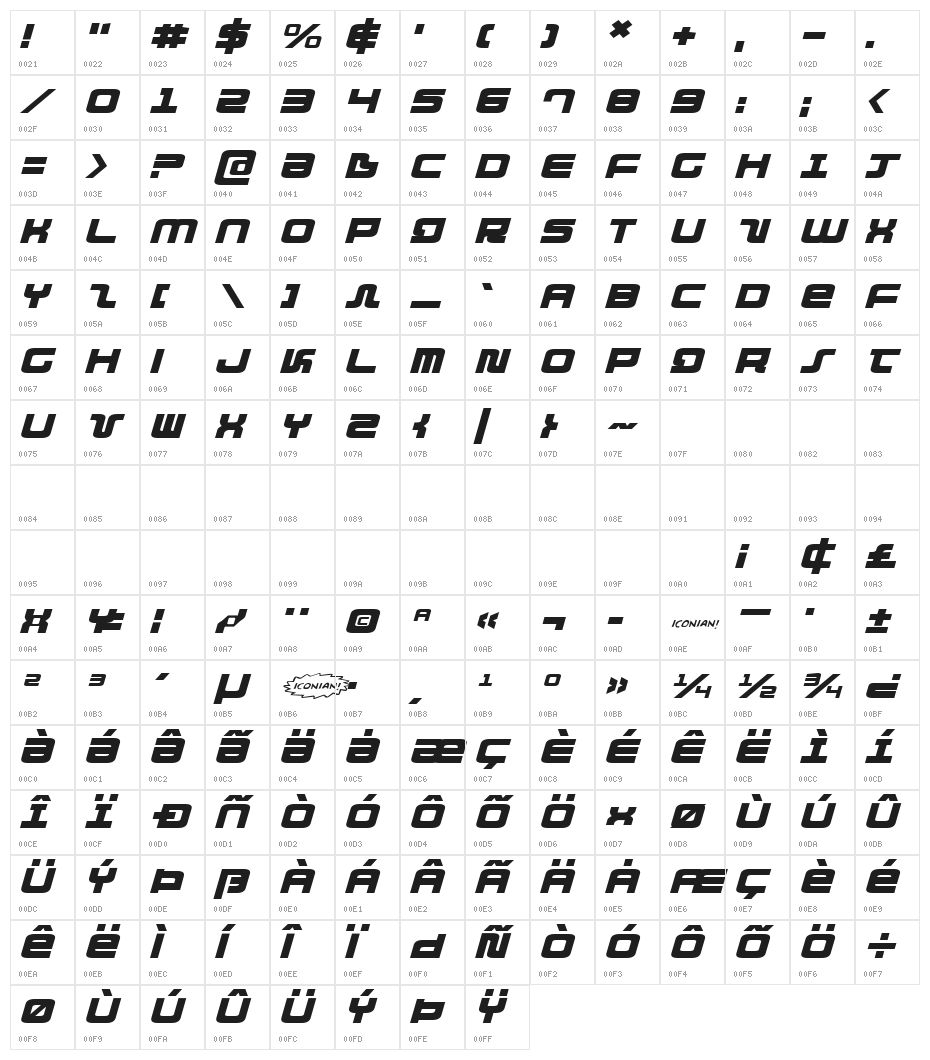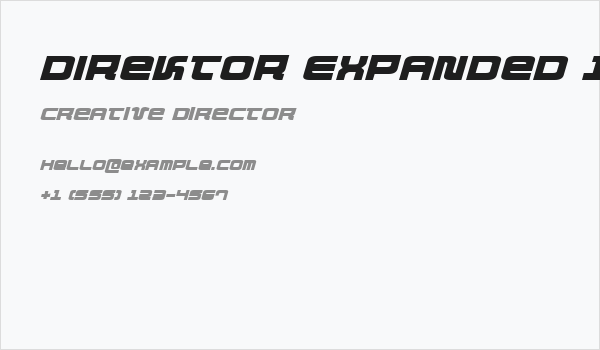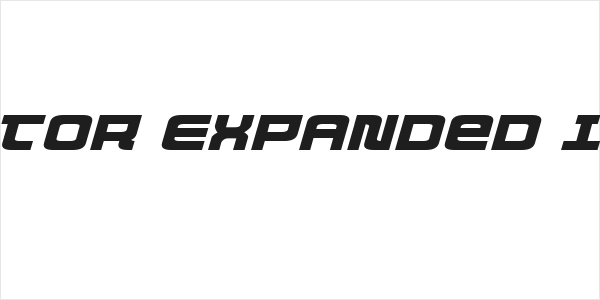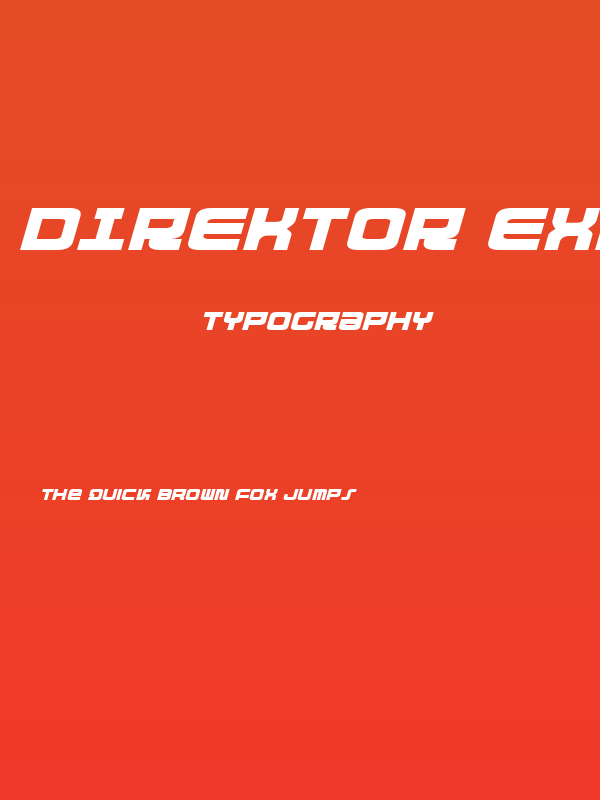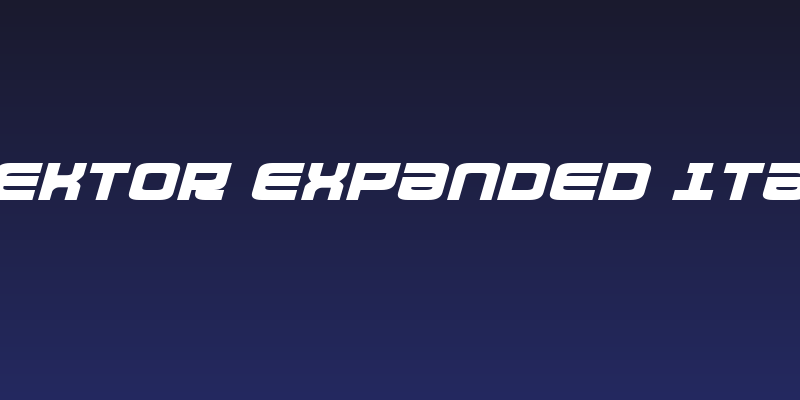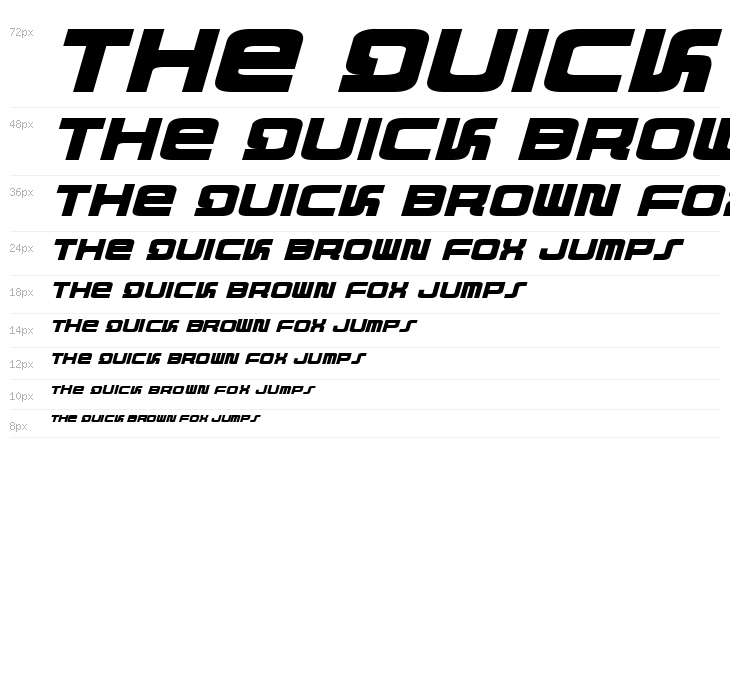
Direktor Expanded Italic Font
Direktor Expanded Italic Description
This font features a bold and dynamic design with an expanded width and italicized style. The characters are crafted with a futuristic and geometric aesthetic, showcasing sharp angles and clean lines. The uppercase and lowercase letters maintain a consistent style, with a slight slant that adds a sense of motion and energy. The numerals and special characters are equally bold, ensuring readability and impact. This font is ideal for projects that require a modern and assertive look, such as technology branding, sports team logos, or dynamic advertising campaigns.
| Use Case | Logos, Headlines, Branding |
| Proposed Projects | Ideal for technology branding, sports team logos, and dynamic advertising campaigns. |